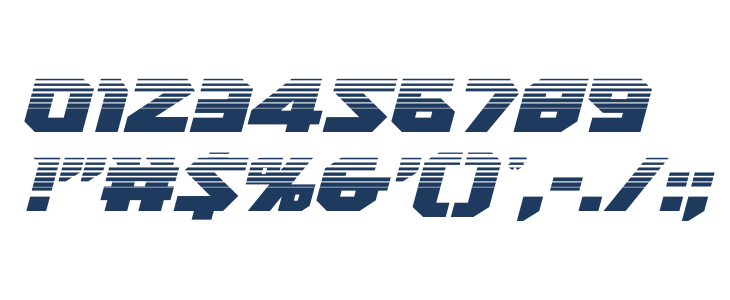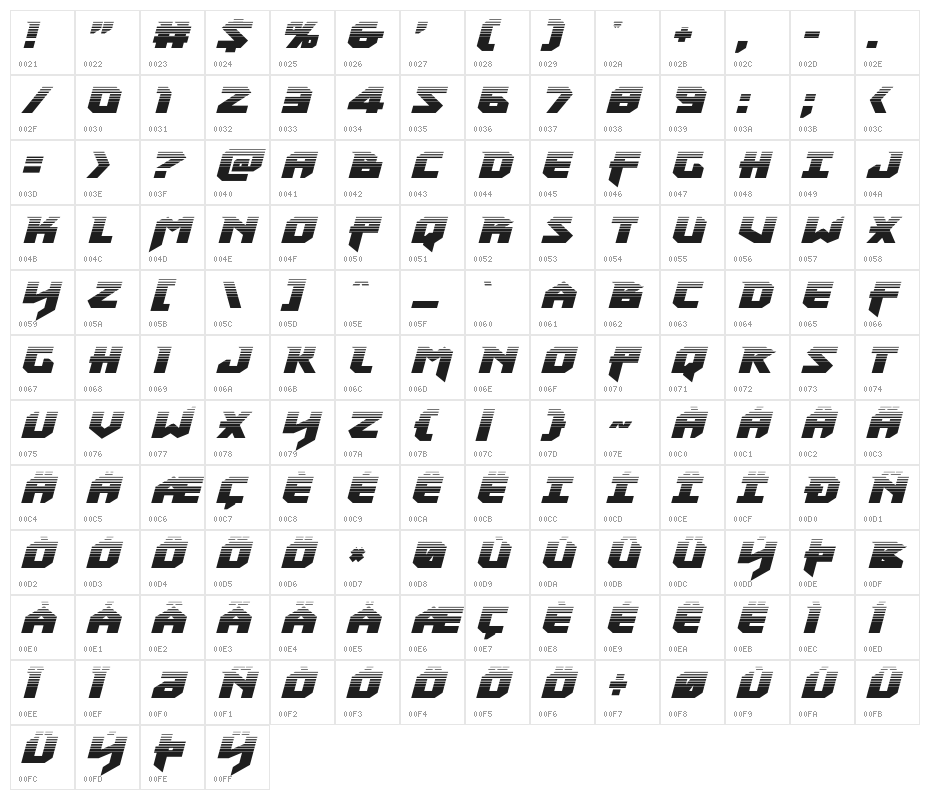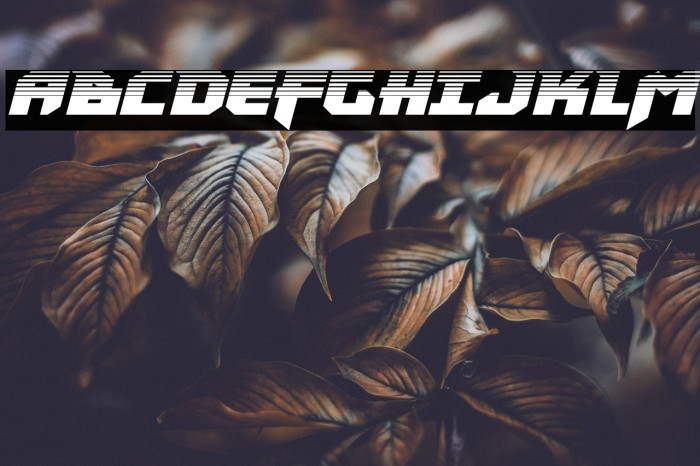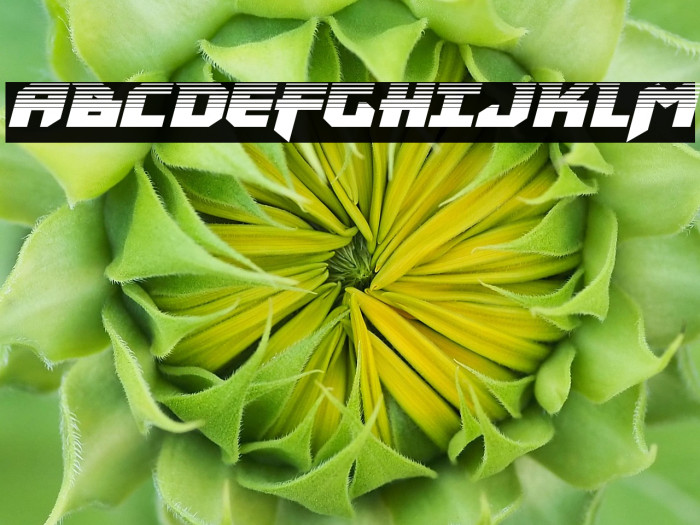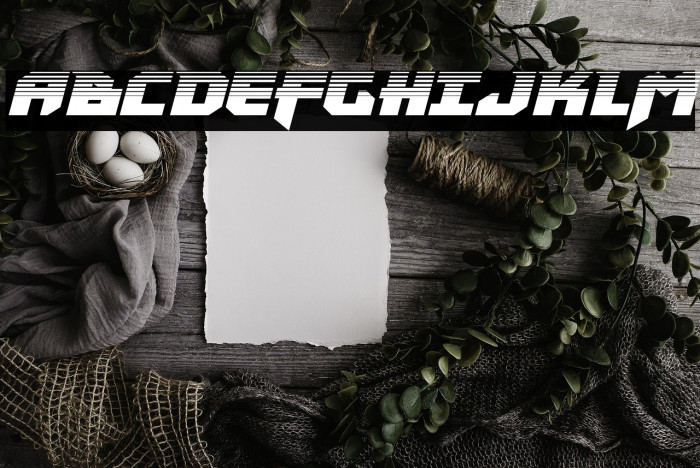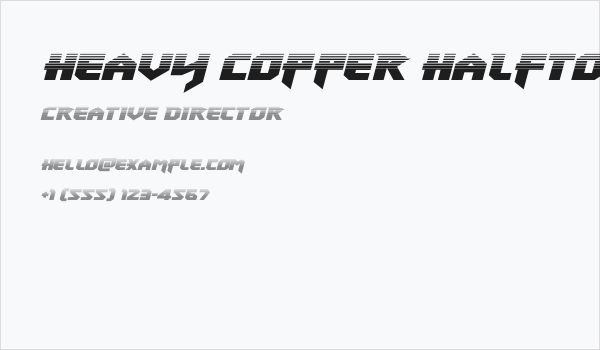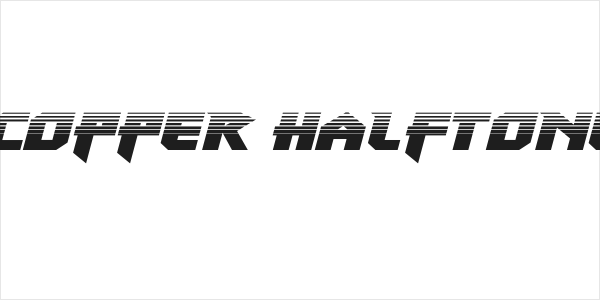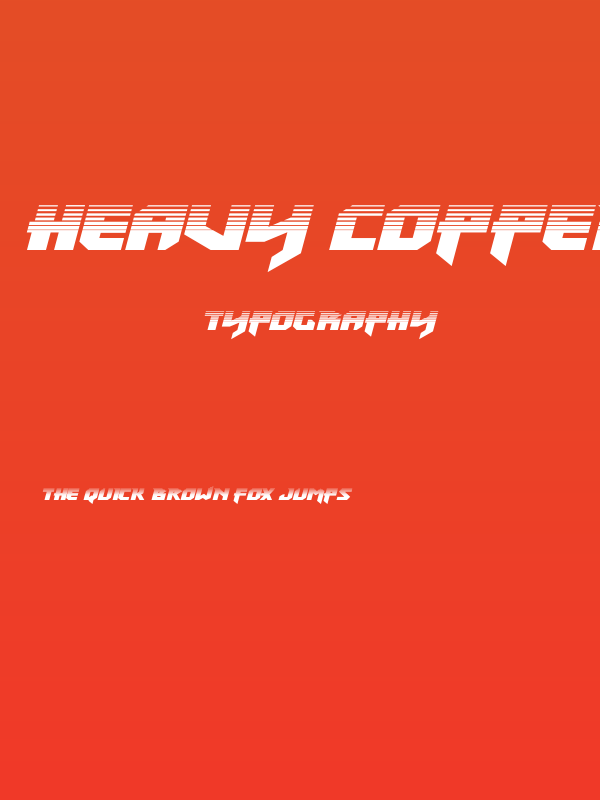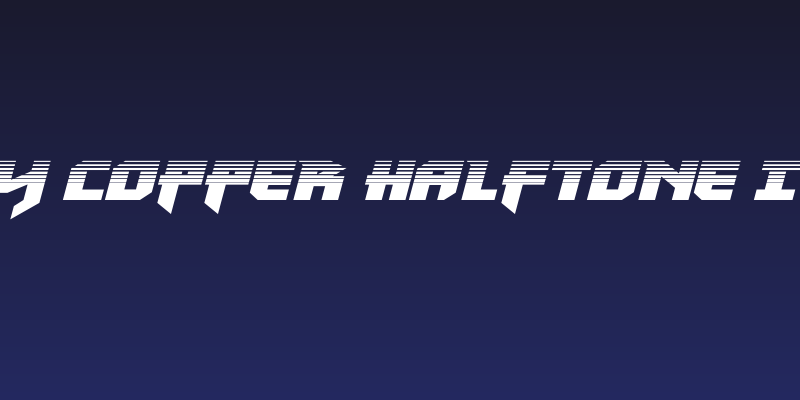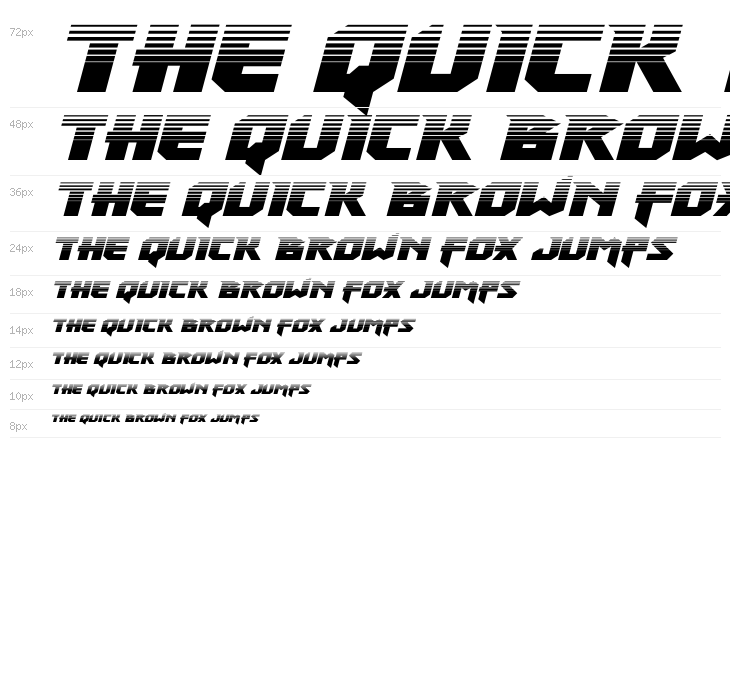
Heavy Copper Halftone Italic Font
Heavy Copper Halftone Italic Description
This font features a bold, futuristic design with a distinct halftone effect that creates a sense of movement and dynamism. The characters are italicized, adding a sleek, forward-leaning appearance. Each letter is constructed with sharp angles and geometric shapes, giving it a modern and edgy feel. The horizontal lines within the characters enhance the halftone effect, creating a layered look that adds depth and texture. This font is highly stylized, making it ideal for projects that require a strong visual impact.